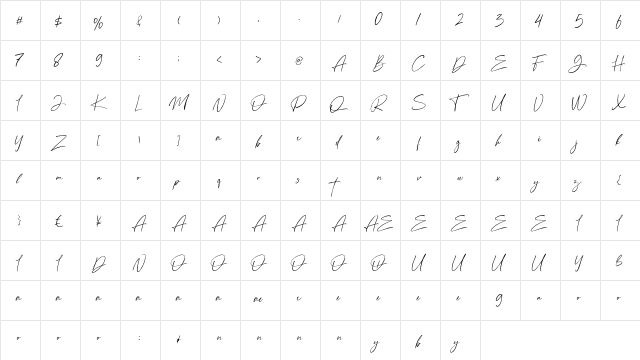
Anamortee Regular
| Foundry | Chandra Vultype |
| Designer | Chandra Vultype |
Design Context for Anamortee Typeface
Anamortee is a composed and adaptable typeface that performs quietly and consistently across a wide range of design contexts.